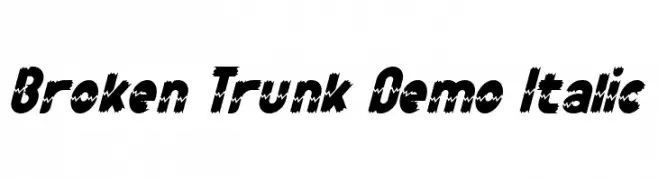
A fluid and elegant script font with medium contrast and graceful letterforms.
A whimsical, decorative font with nature-inspired embellishments and modern elements.
A decorative font with floral embellishments and bold, artistic letters.
A bold, modern font with geometric and rounded elements for a dynamic look.
A bold, italic font with a dynamic and modern style.
A bold, italic font with a modern, dynamic style and smooth curves.
A playful, decorative font with intricate patterns and textures.
A bold, dynamic brush script font with expressive strokes and a hand-painted look.
A playful, hand-drawn font with tall, narrow letters and charming loops.
A decorative font with bold letters in circular frames linked by ornamental designs.
A bold, 3D block-style font with cube-like encasements and sharp geometric edges.
A bold 3D block font with a vintage, decorative style.
A bold, modern font with clean, geometric lines and consistent stroke thickness.
A playful, hand-drawn font with decorative striped patterns.
A cursive, handwritten font with elegant, flowing strokes.
A playful, outlined font with whimsical patterns and a handmade feel.
A playful, bone-like decorative font with a hand-drawn aesthetic.
Bold, tile-enclosed sans-serif font with a game-like aesthetic.
A bold, playful font with a dotted pattern and rounded characters.
A bold, zebra-patterned font perfect for creative and adventurous designs.
A playful, gear-enclosed font with an industrial theme.
A decorative font with characters encased in circular mosaic patterns.
A playful, cartoonish font with characters that appear to be walking.
A playful, decorative font with spiky embellishments and bold, rounded characters.
A playful, hand-drawn font with intricate, web-like patterns.
A whimsical, hand-drawn font with intricate patterns and playful energy.